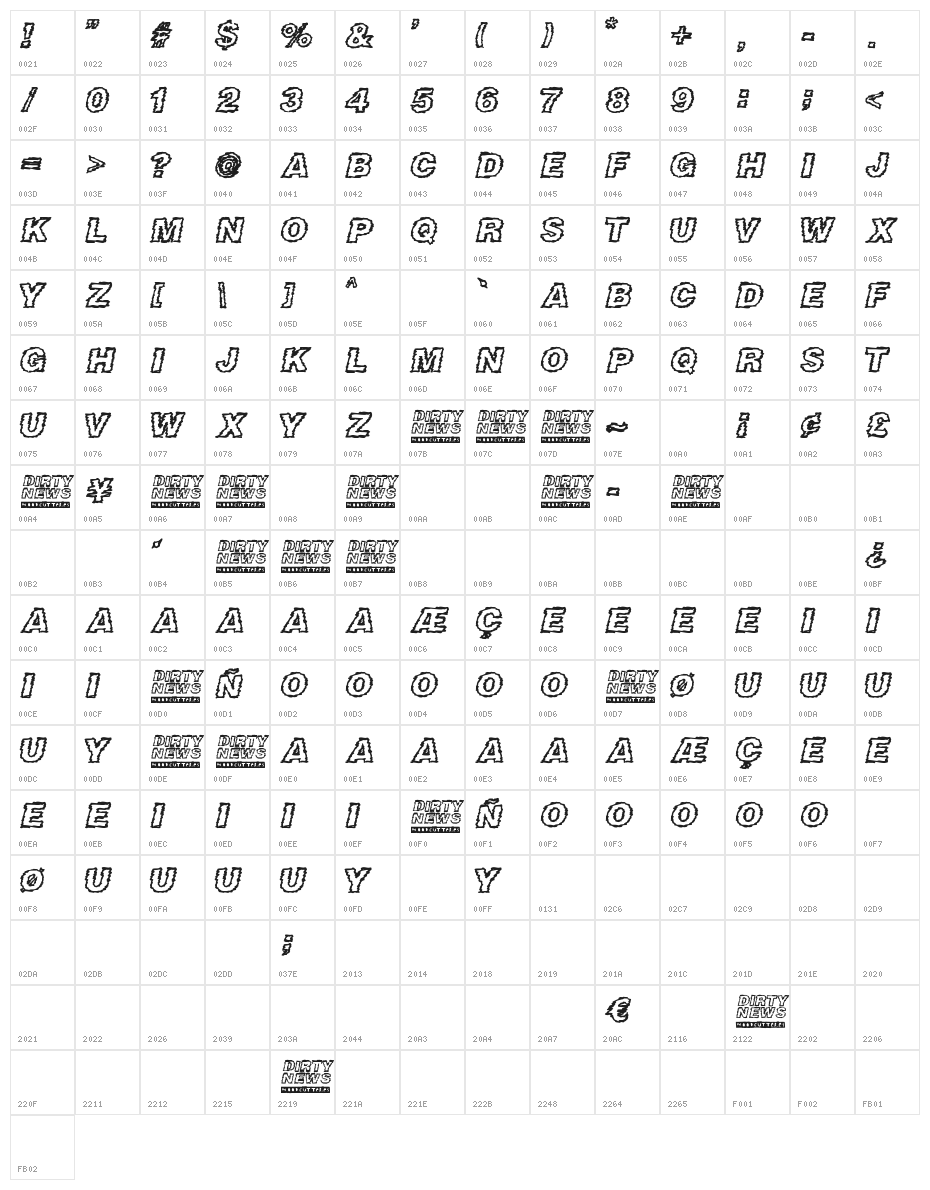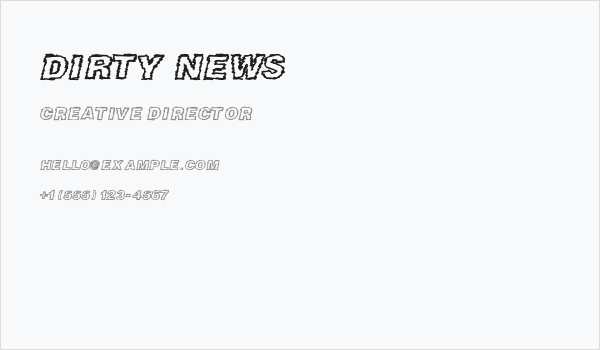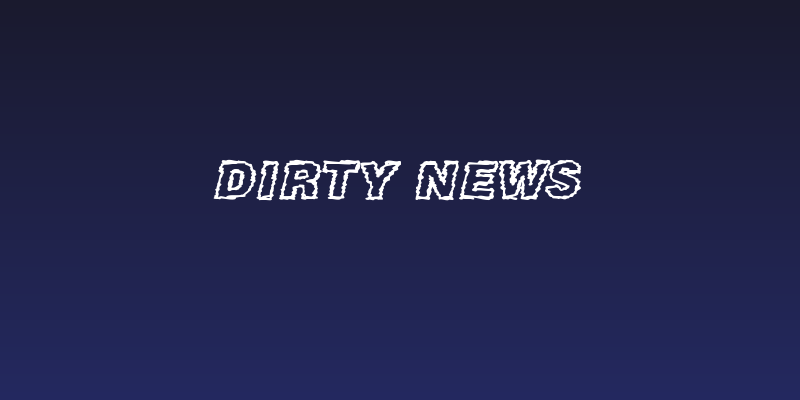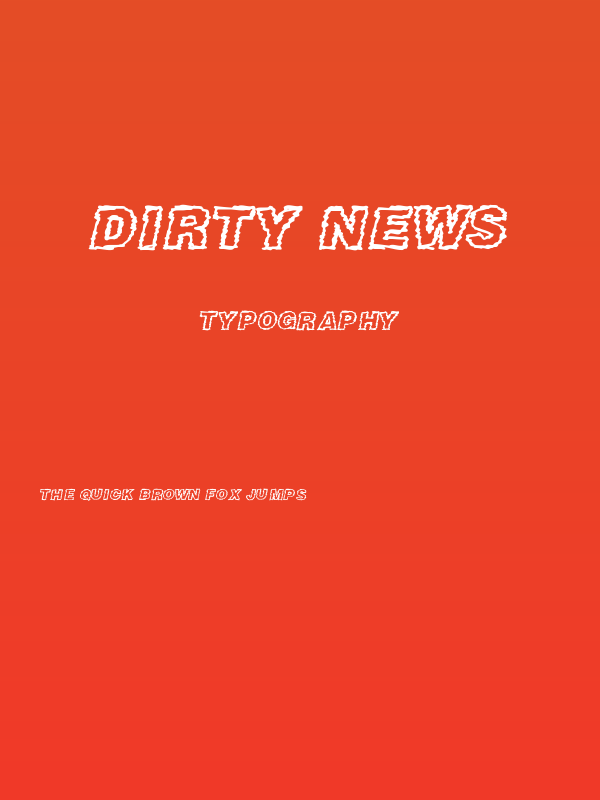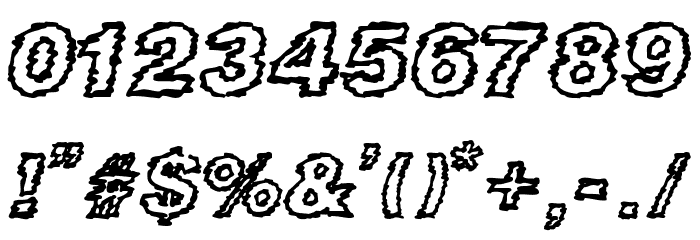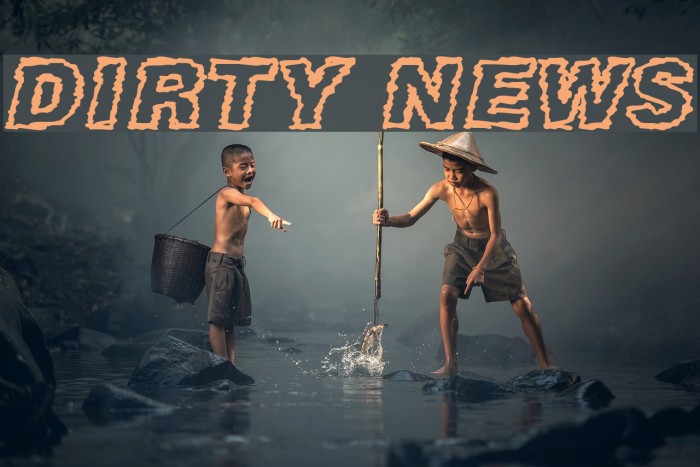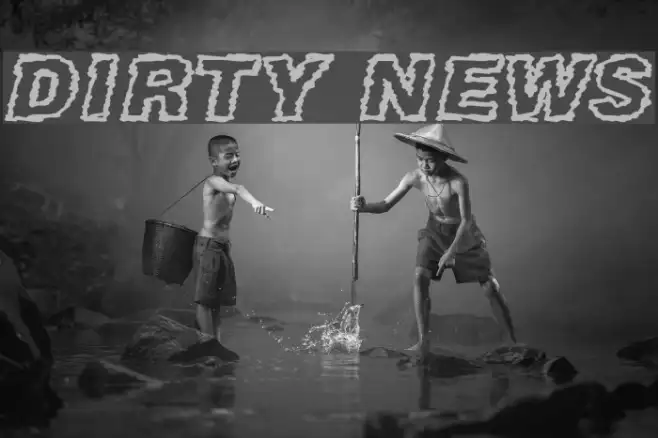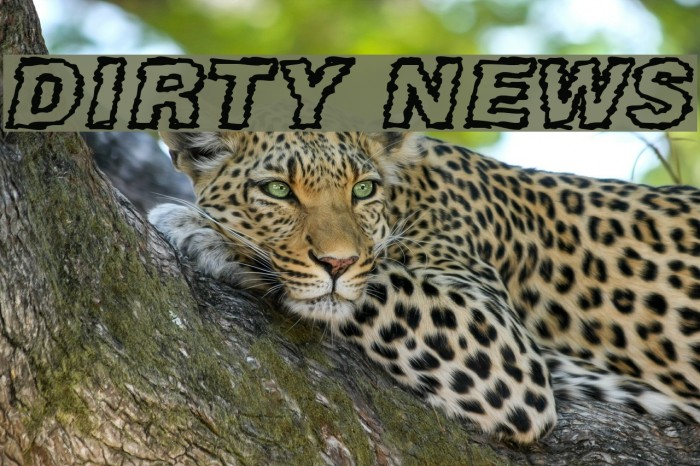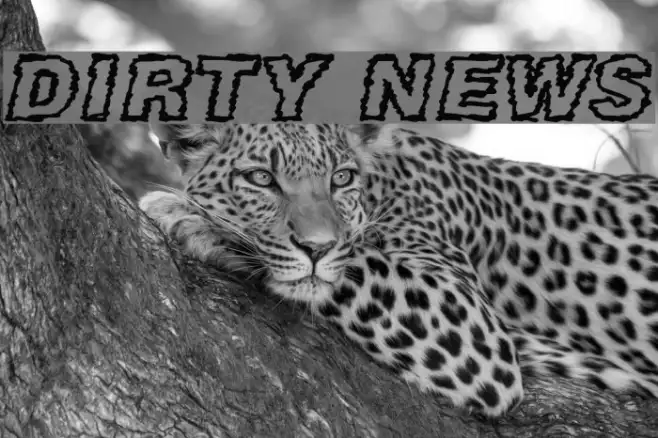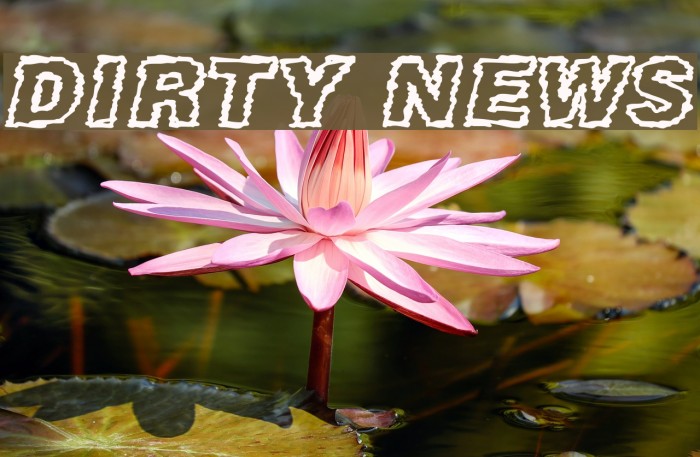
DIRTY NEWS Font
This font features a bold, rugged style with a distressed, textured appearance that gives it a gritty, urban feel. The characters are uppercase and have a slightly slanted, italicized form, adding a dynamic and energetic vibe. The edges are rough and uneven, contributing to its raw, edgy aesthetic. This font is highly decorative and stands out due to its unique, bold presentation. It is ideal for projects that require a strong visual impact and a sense of rebellion or nonconformity.
| Proposed Projects | Perfect for album covers, streetwear branding, posters, and edgy editorial designs. |